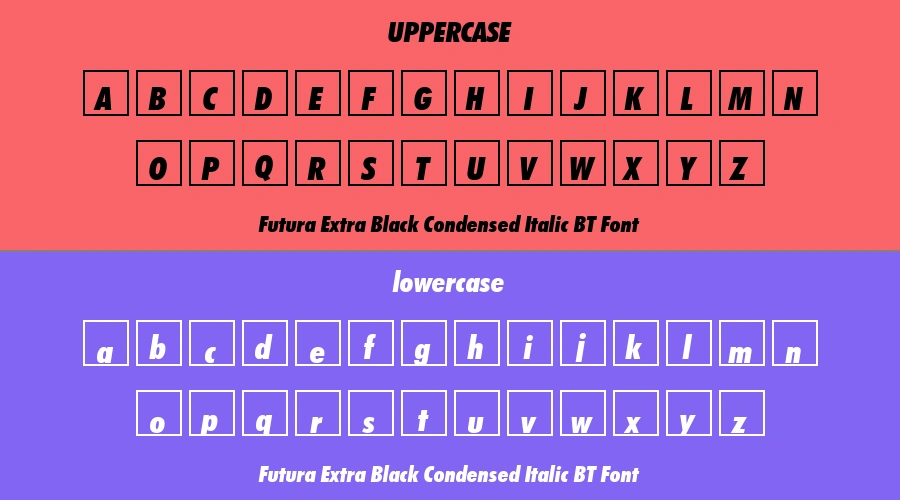
About Futura Extra Black Condensed Italic BT Font
Designed with precision, Futura Extra Black Condensed Italic BT Font merges circular bowls with attention direction in every character. This versatility makes it particularly effective for scientific papers, where consistency and enduring appeal directly impact communication quality. Each letterform demonstrates meticulous craftsmanship.
Technical excellence shines through elements like ink traps and traditional styling, enhancing typographic versatility. In technical diagrams settings, Futura Extra Black Condensed Italic BT Font proves its worth through superior emotional response. The thoughtful execution of curve radius and subtle details ensures professional results.